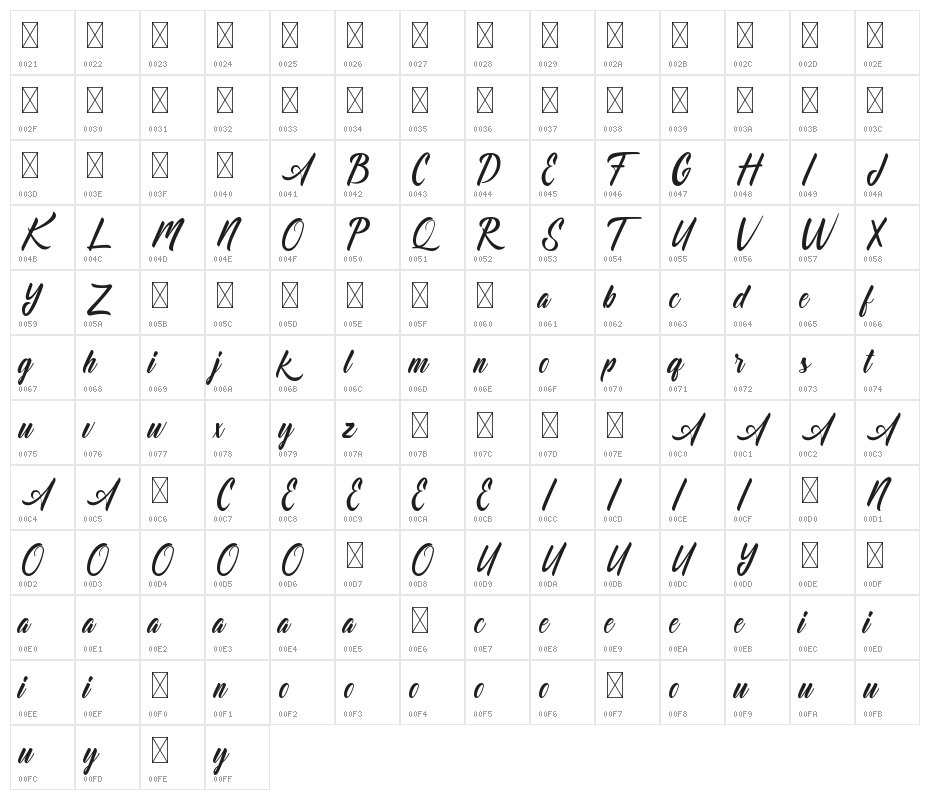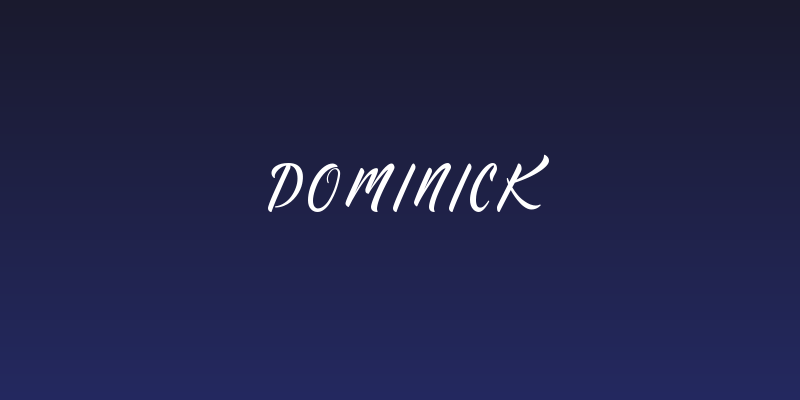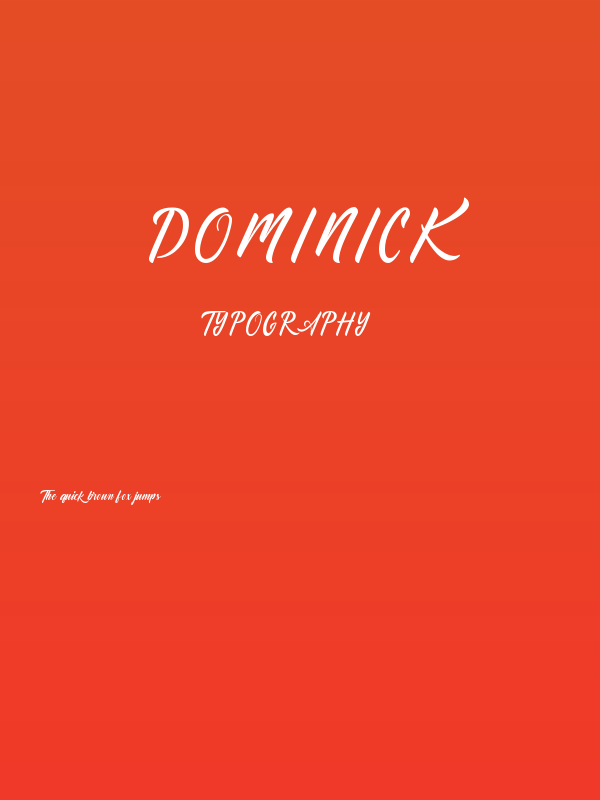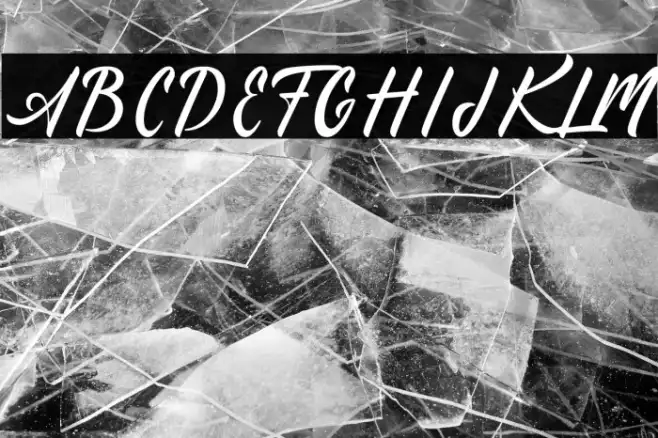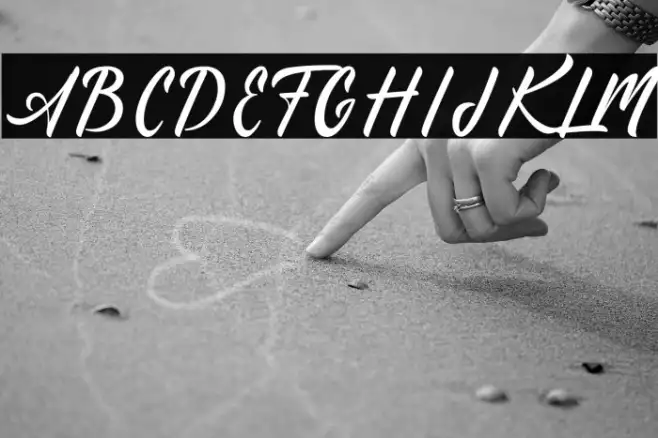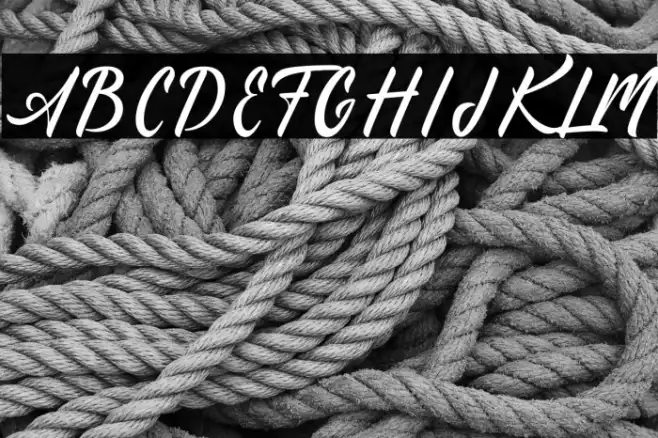
Dominick Font
Dominick Description
This font features a dynamic and flowing script style, characterized by its elegant and cursive letterforms. The uppercase letters exhibit a graceful slant with smooth, sweeping curves, while the lowercase letters maintain a consistent fluidity, enhancing the overall aesthetic. The strokes are moderately thick, providing a bold presence without overwhelming the design. The font's organic and handwritten appearance makes it suitable for projects that require a personal touch or a sense of sophistication. The absence of special characters suggests a focus on alphabetic text, making it ideal for titles, invitations, and branding materials.
| Overall Style | Elegant, Handwritten |
| Use Case | Headlines, Invitations, Branding |
| Proposed Projects | Ideal for wedding invitations, elegant branding, personal stationery, and artistic projects. |